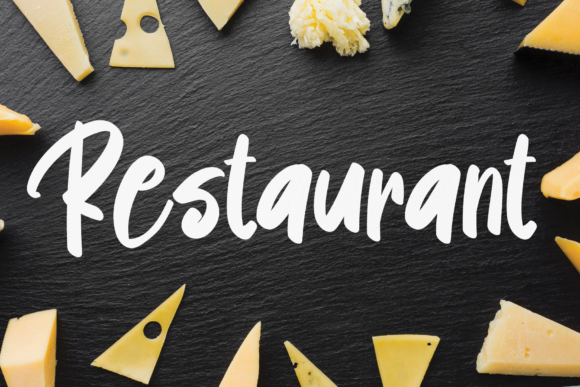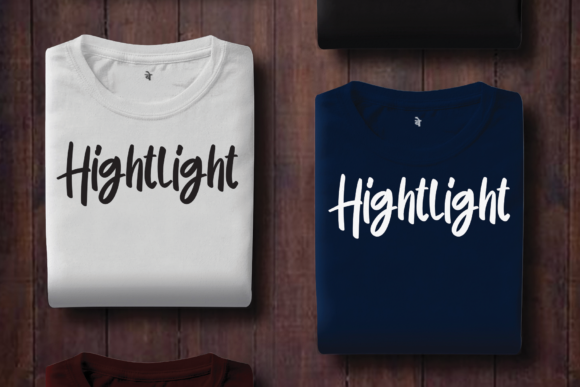
Rollinda Font
db-ku.com - Script & Handwritten -- Rollinda is a beautiful handwritten font that looks modern and chic. It would make an excellent addition to your fonts library, as it can enhance any creation!